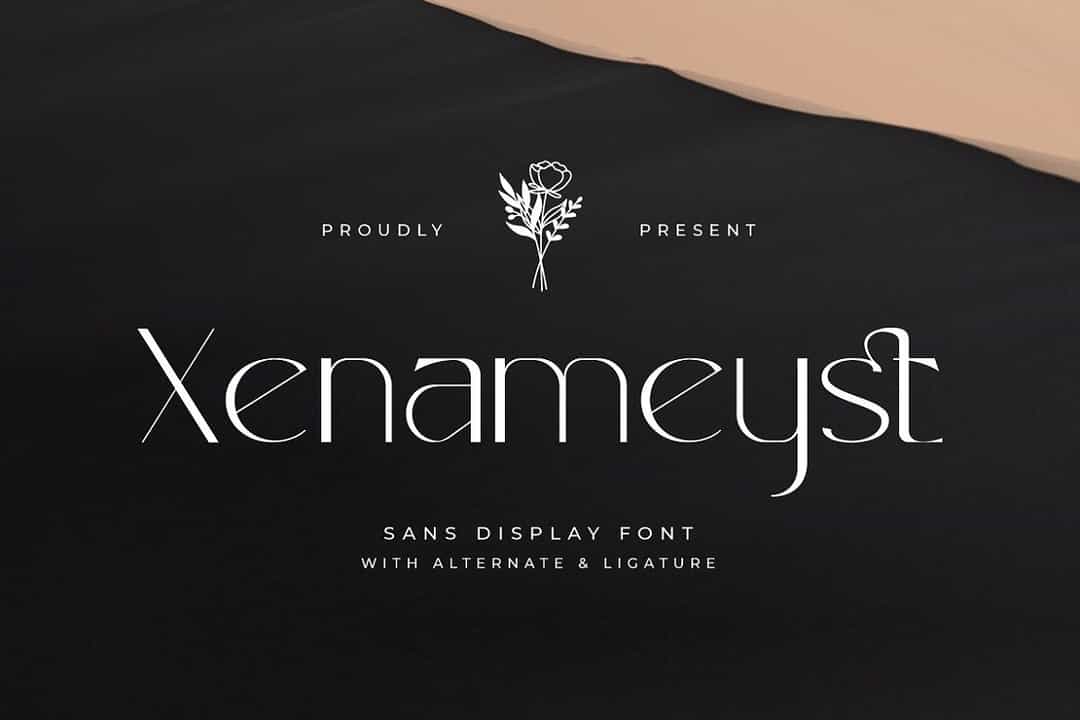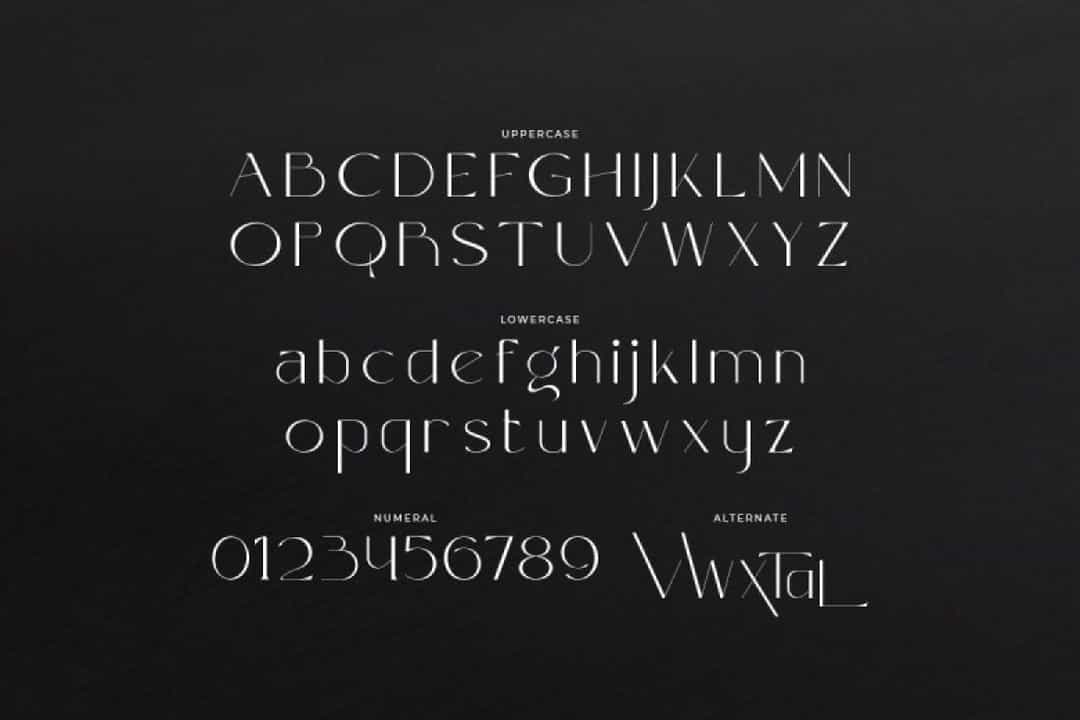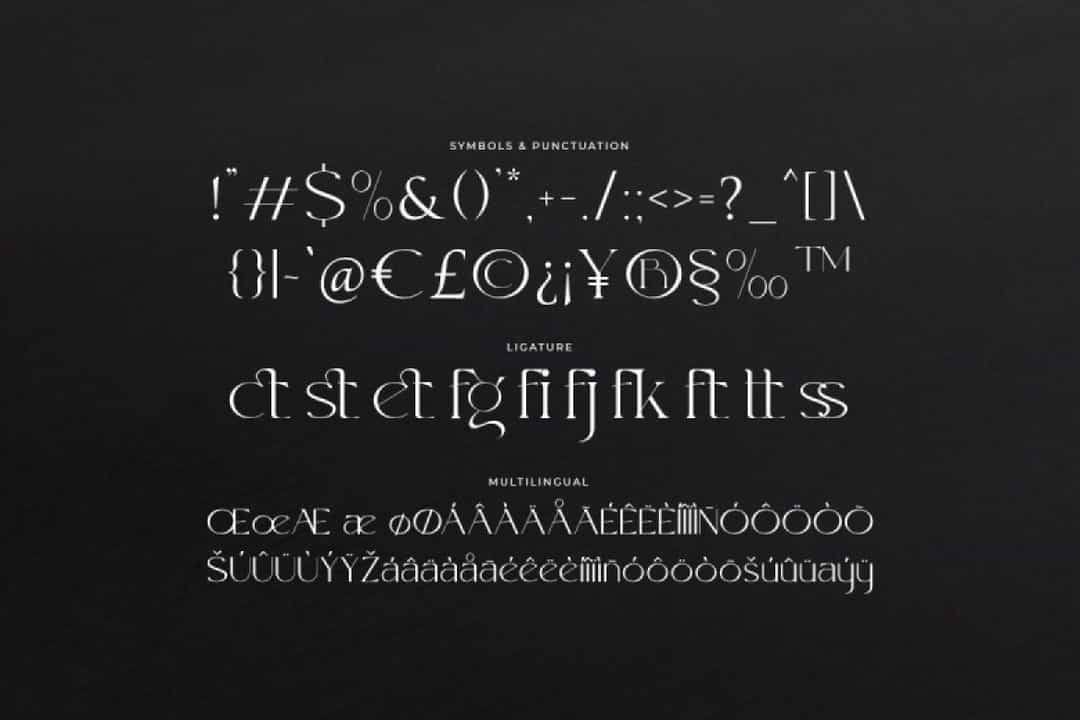
Discover Xenameyst Font, part of the Sans Serif Display collection—a versatile and unique font perfect for adding a personal touch to your projects. Download it for free and enjoy crafting designs with style, from invitations to social media posts. This font is available exclusively for personal use, giving you the freedom to create without limits. Unlock your creativity with Xenameyst Font today!
Xenameysti is an innovative sans serif display font. No matter the topic, this font will make a great addition to your font library as it adds beauty to every design – perfect for logo designs, branding projects design, clothing branding packages magazine headers or as text overlays on background pictures.